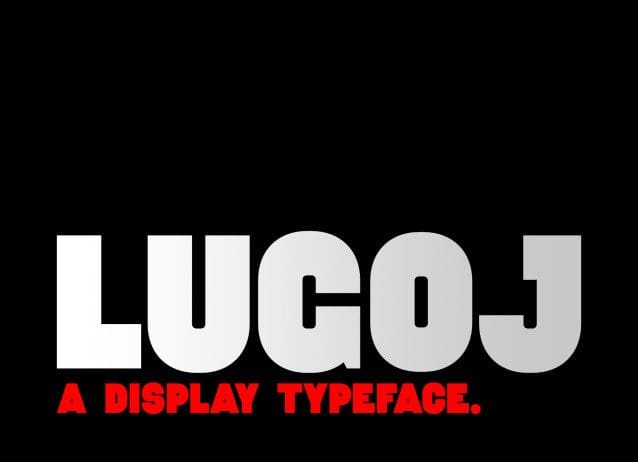
Lugoj Demo
Lugoj Demo – is a simple and effective display sans-serif. It works best for headlines and posters; it’s caps only. It integrates well with a large variety of styles, fonts, and graphics since it’s kept uncomplicated. Its bold forms can work well standalone too.
It stands out but doesn’t insist upon itself. It’s loud, but it doesn’t yell.The rounded strokes of ‘sharp’ letters like K and R, along with the added straight segments to letters like G, C, and O, create a harmonious balance among the letterforms.
“Lugoj” is a namesake of my hometown, which is very dear to me.